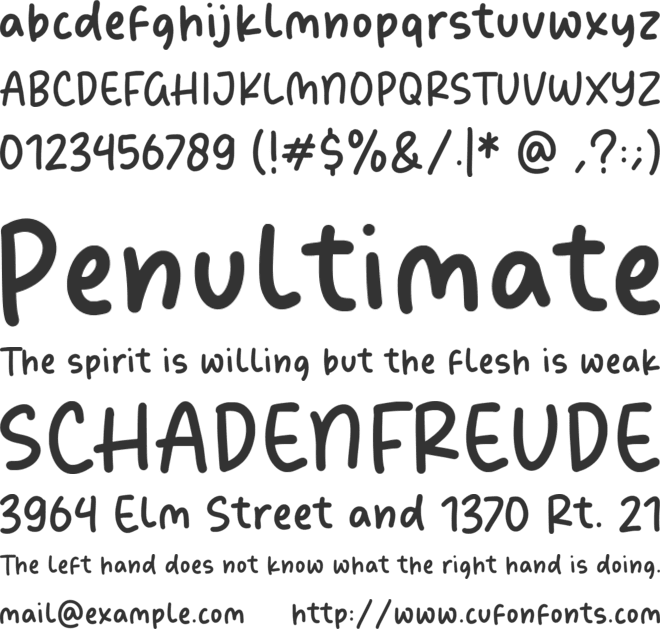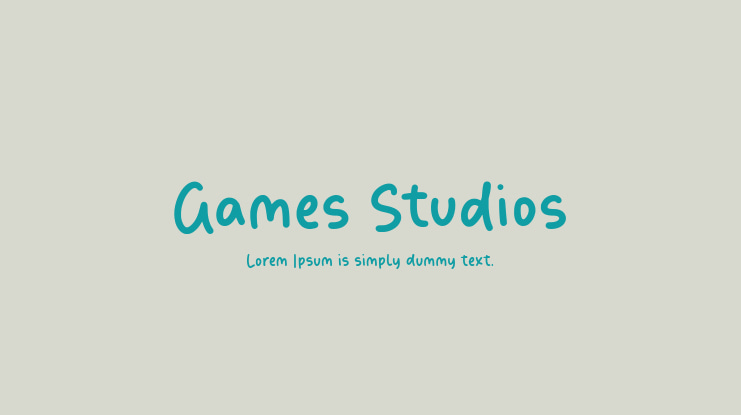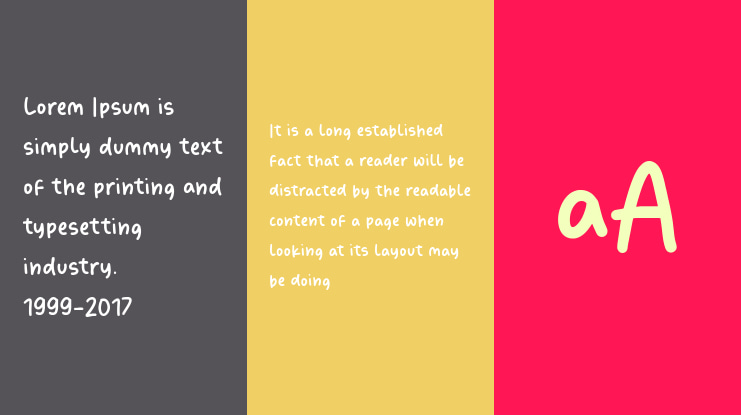
Games Studios Font
Introducing by Balpirick Studio.
Games Studios is a fun handwritten font that's perfect for adding a personal touch to your design projects! With its natural, organic feel and unique character.
Crafted with care and attention to detail, this font is incredibly versatile and can be used for a range of design projects, including logos, branding, invitations, and more. Its modern, handwritten style gives it a unique character that's sure to make an impact.